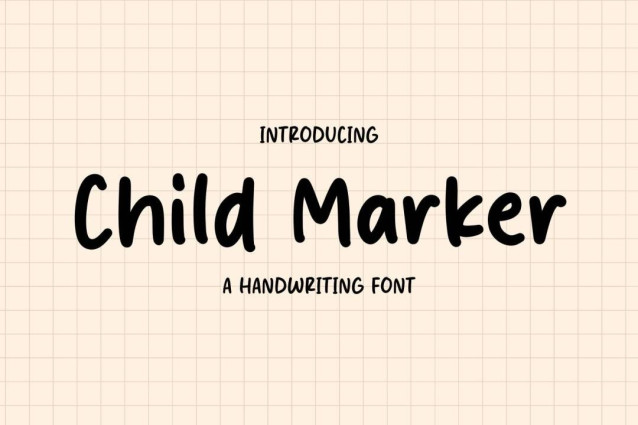
Child Marker Font
Child Marker Font is a simple and friendly handwritten font. Its natural and unique style makes it incredibly fitting to a large pool of designs. The only limit is your imagination!